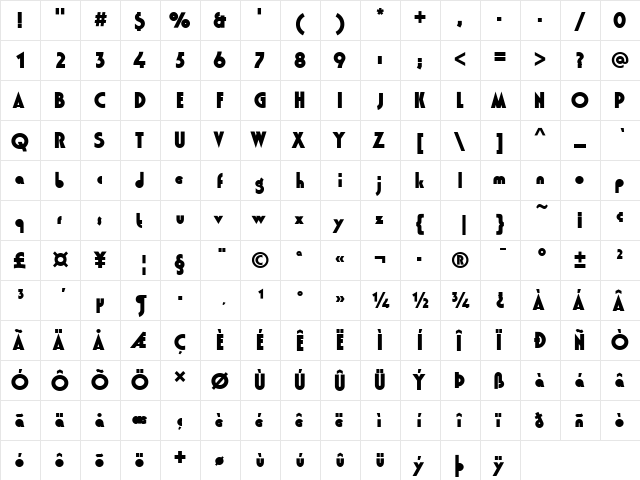
Washington D Black
Design Context for Washington D Typeface
Washington D takes a measured approach to typography — its balanced proportions and neutral character make it a reliable workhorse for both digital and print work.